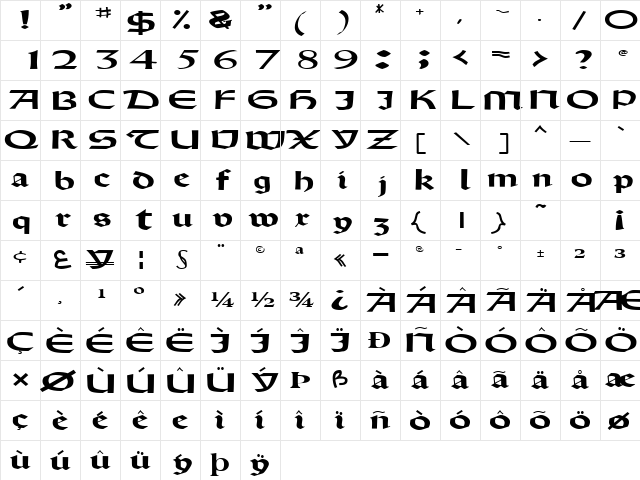
DriscollSSK Bold
Design Context for DriscollSSK Typeface
DriscollSSK is a composed and adaptable typeface that performs quietly and consistently across a wide range of design contexts. Its bold stroke weight gives it real presence on the page.